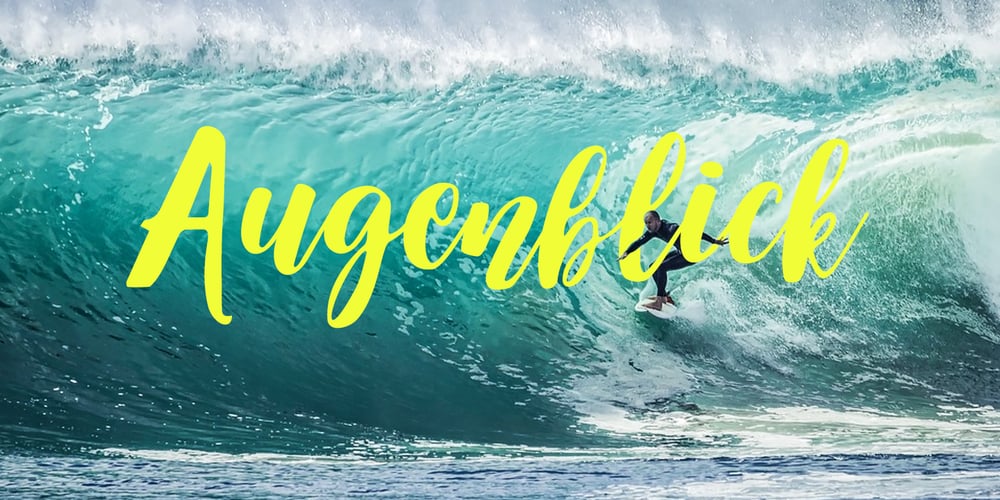
Augenblick Font Family was designed by Alex Etewut and published by Etewut. Augenblick contains 1 styles and family package options. I’m glad to introduce Augenblick! My new font fits to your design be it wedding invitation, corporative Identity or bottle of wine. Send flowers to your lover with a card signed with Augenblick, and see what happens! It has multi language support, so, please use your mother tongue. Good luck & be happy!